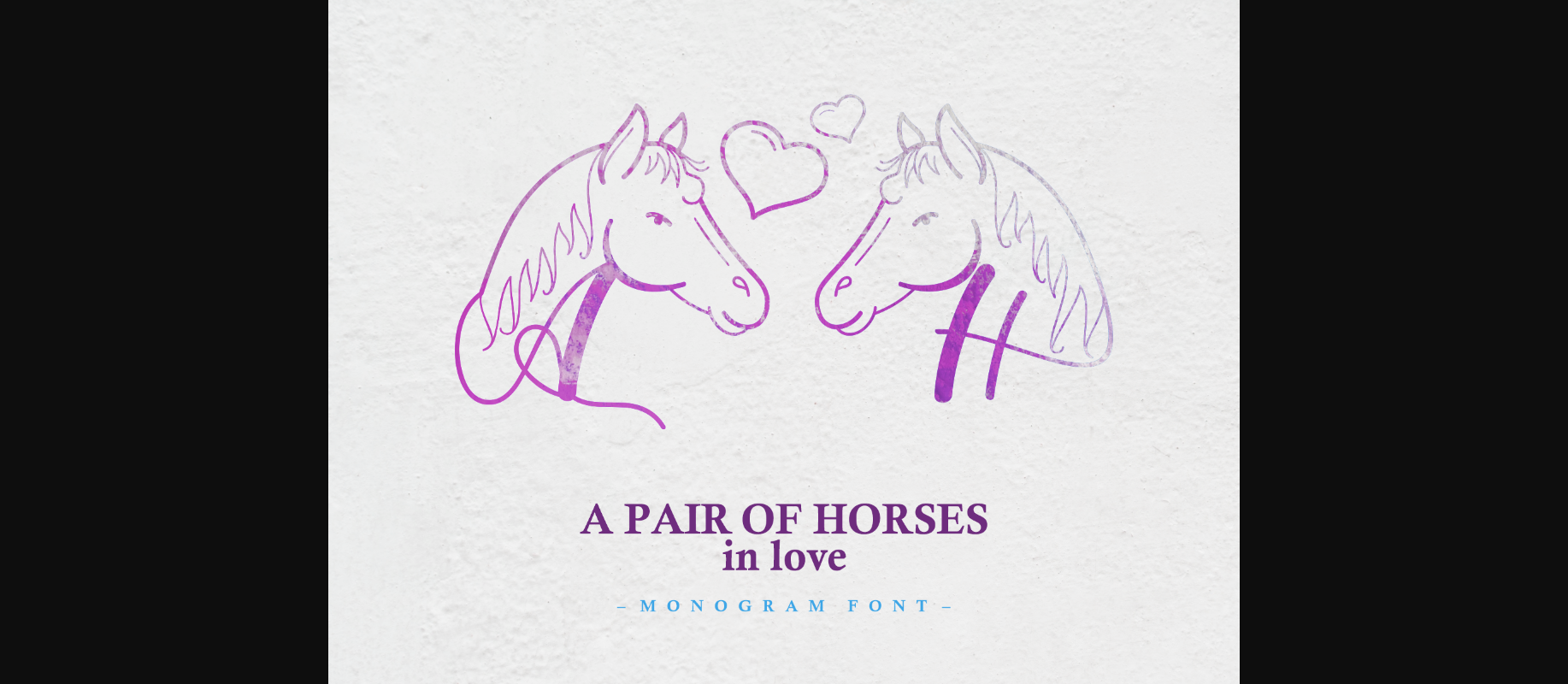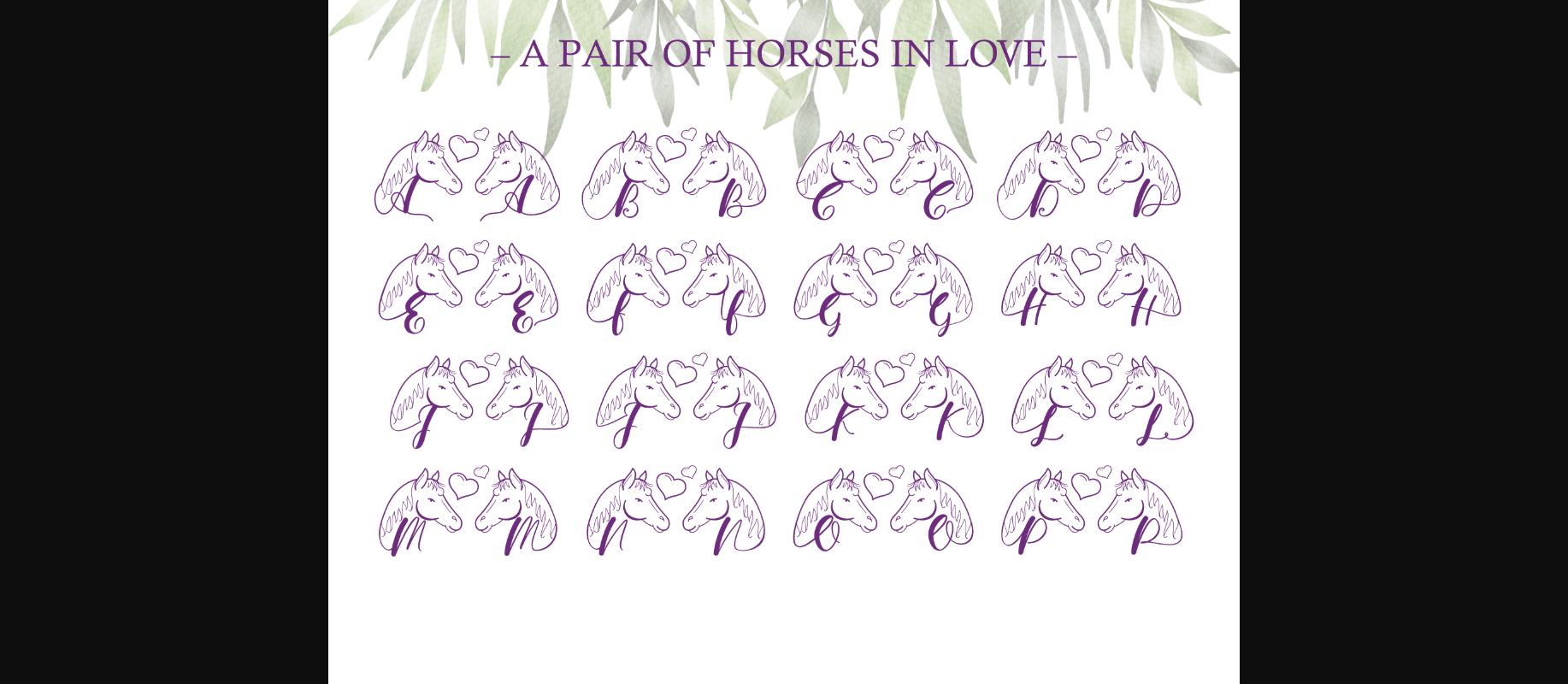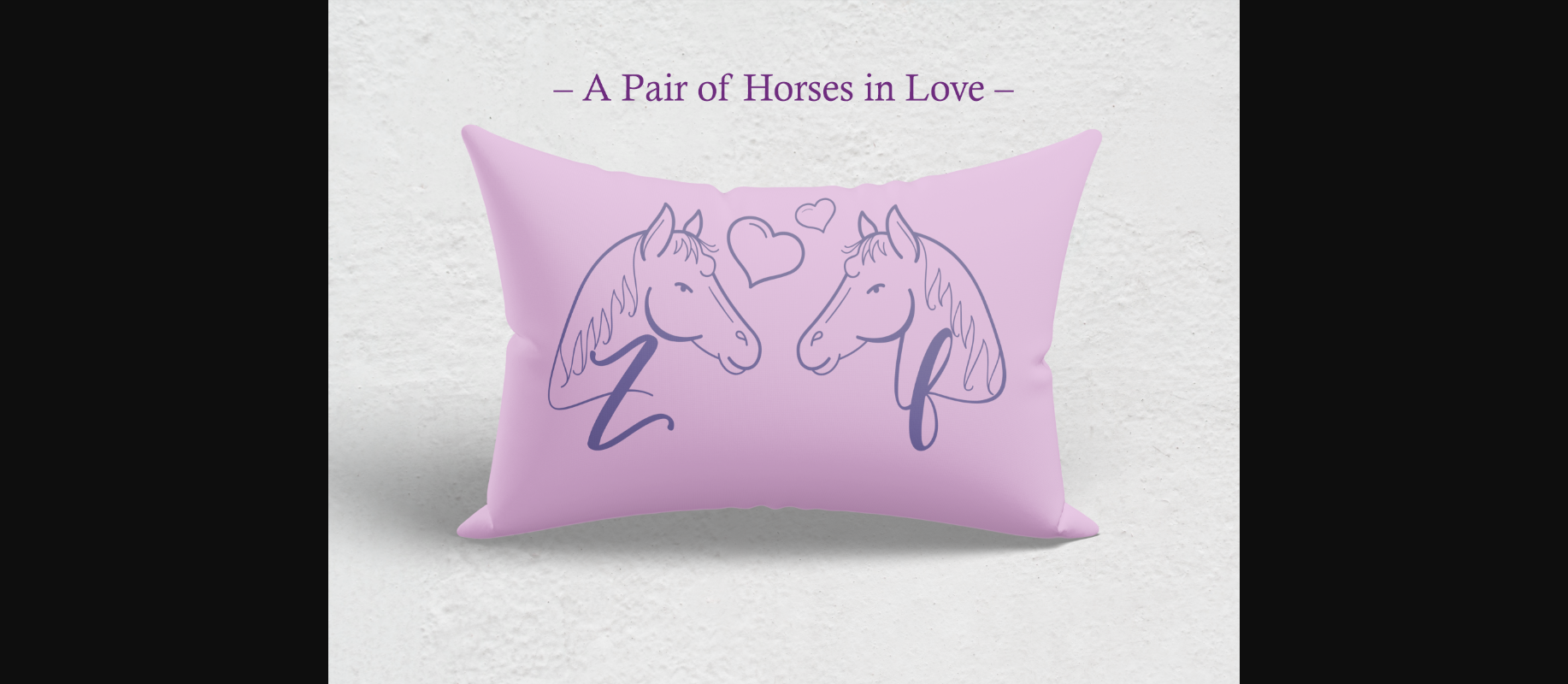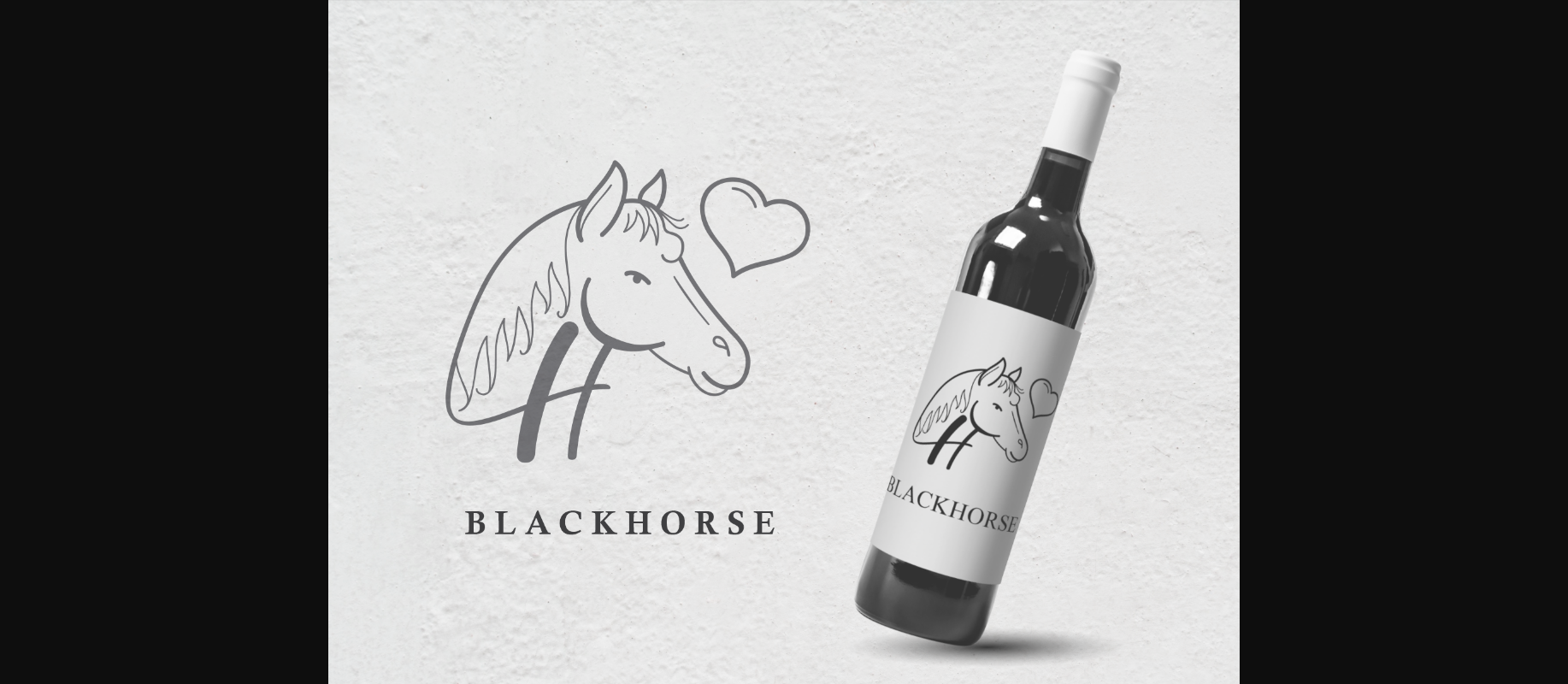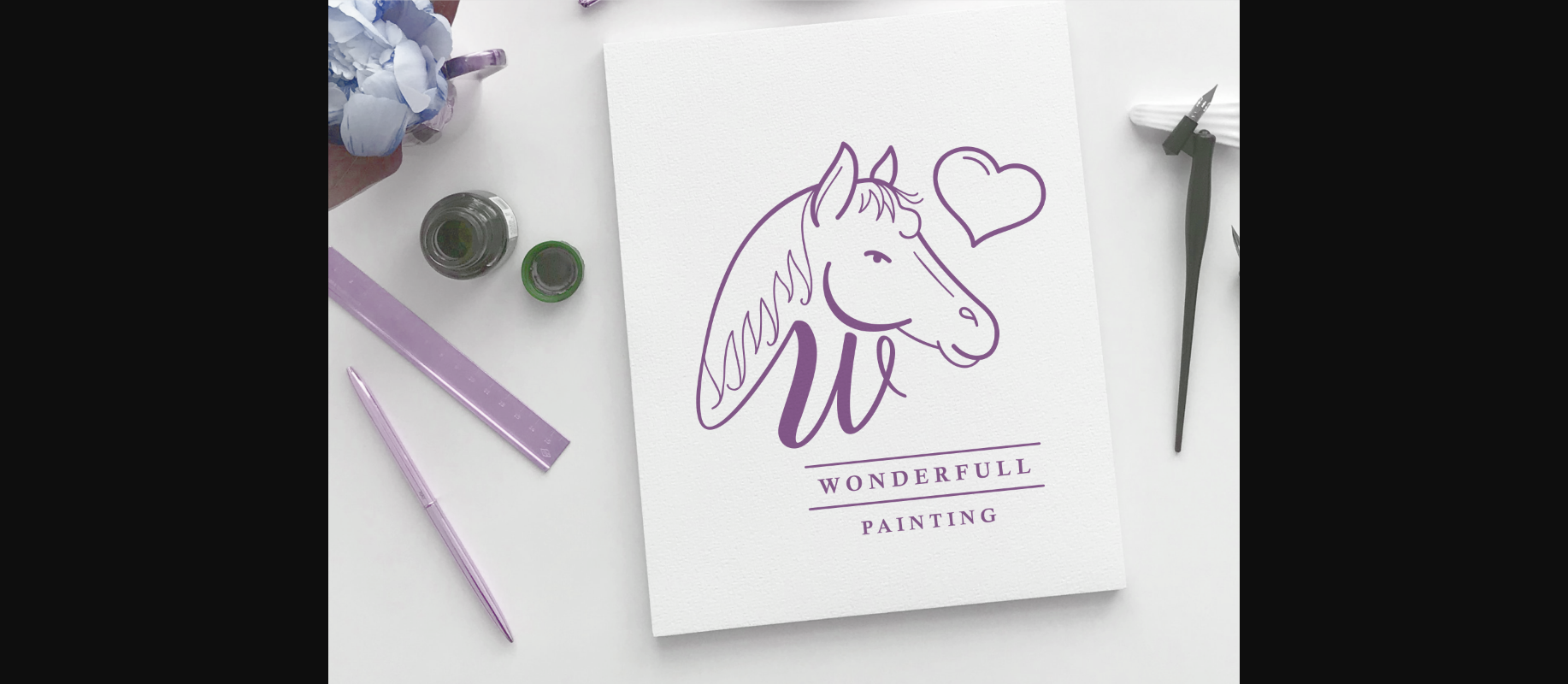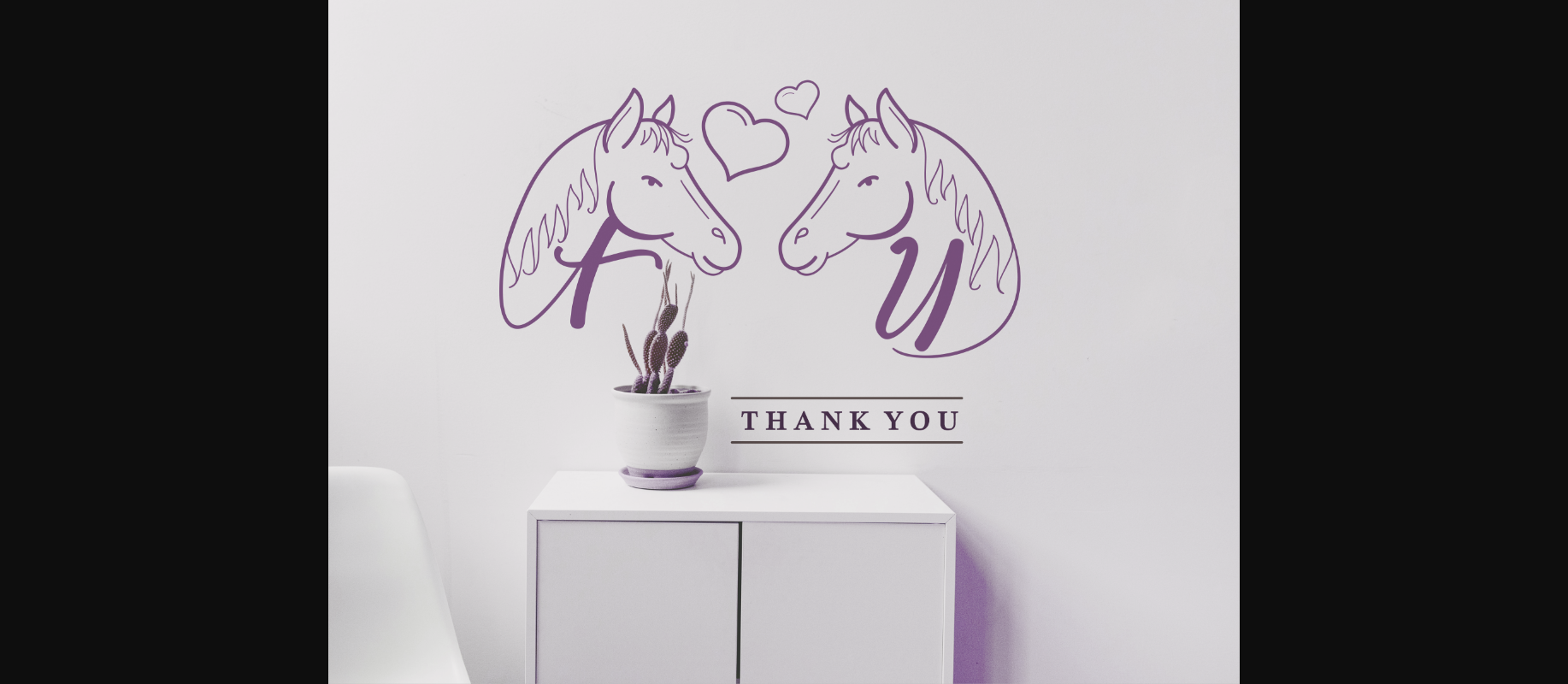
A Pair of Horses in Love Font
About A Pair of Horses in Love Font
A Pair of Horses in Love is a very unique and angelic decorative font, featuring a horse head and a heart as ornaments. Fall in love with its incredibly versatile style and use it to create gorgeous wedding invitations, beautiful stationery art, eye-catching social media posts, and more!